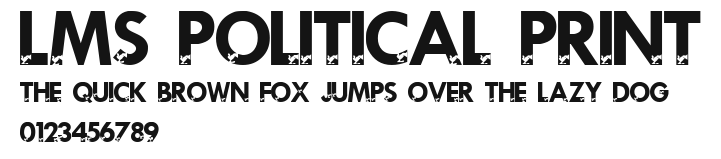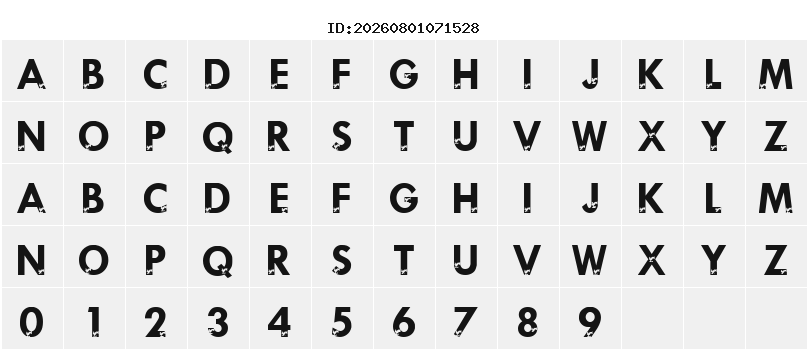
• Font Name: LMS Political Print
• Font ID: Macromedia Fontographer 4.1 LMS Political Print
• Full Font Name: LMS Political Print
• Version: Macromedia Fontographer 4.1 10/5/2004
• PostScript Name: LMSPoliticalPrint
• Character Count: 73
• Copyright: By London Stokes.
About LMS Political Print.ttf
LMS Political Print.ttf is a modern, elegant sans-serif font designed for ultimate readability and visual harmony. Perfect for branding, headlines, web design, and print materials.